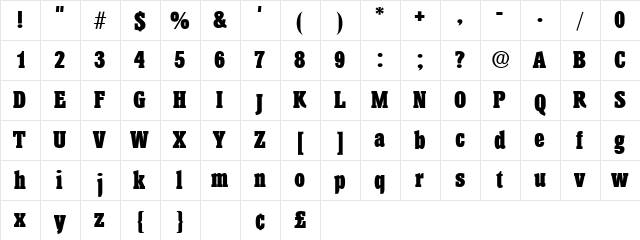
Anatole Display SSi Regular
Design Context for Anatole Display SSi Typeface
Anatole Display SSi brings ornamental detail and strong personality to headlines and identities, where visual impact matters more than quiet functionality.
Font Pairing: Pair with a clean neutral sans-serif for body copy to let Anatole Display SSi's character lead without overwhelming the composition.
Pro Tip: Treat Anatole Display SSi as the centrepiece of your typographic hierarchy. One strong heading set in a decorative face can carry an entire layout.